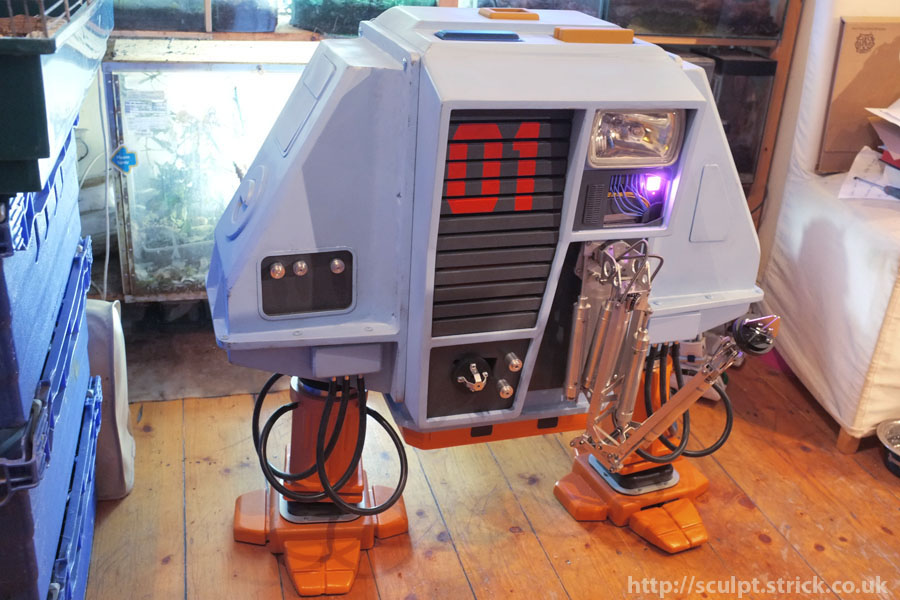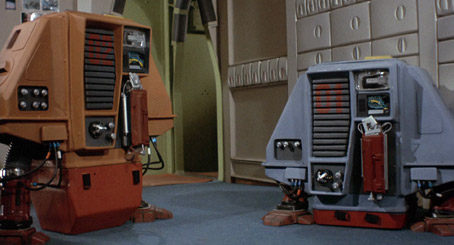
Font type on Silent running drones
Does anyone know a good font match for the numbers on the Silent Running drones?
Have tried to make a match, but not getting anywhere. Fonts are definitely not my strength.
Looking to match the numbers on the front and back. Looks like the same font.
At a glance, Heinrich Regular and/or Tungsten Bold are close. I've attached both if they're helpful.
I don't think they're 100% and obviously the font used would originate in the 60s or 70s at least, but these are close.